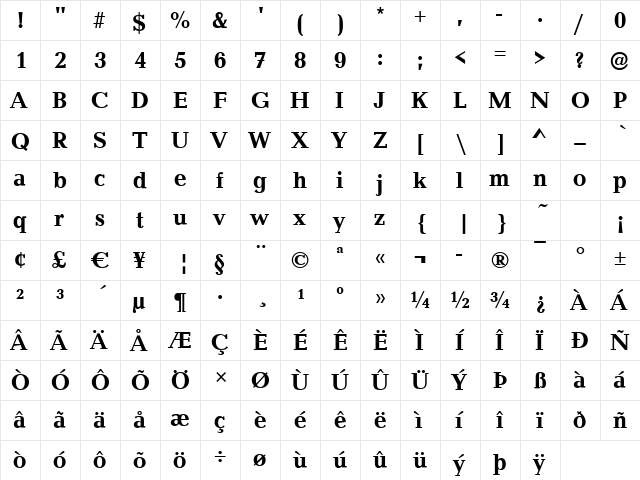
Canyon Bold
Design Context for Canyon Typeface
Canyon is a composed and adaptable typeface that performs quietly and consistently across a wide range of design contexts. The heavy weight commands attention and anchors typographic hierarchies.